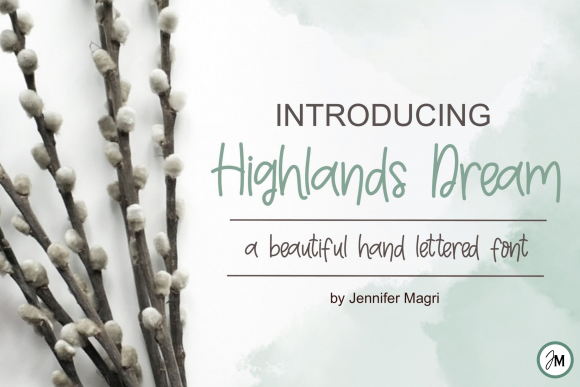
The Highlands Dream Font: Adding Character to Editorial Pages
I was staring at a blank canvas in my layout software, the start of a new personal project—a printable gardening guide I wanted to feel less like a manual and more like a friendly, handwritten letter. The body text was settled, a clean and readable sans serif font, but the title felt sterile. It needed personality, a touch of whimsy to invite the reader in. That’s when I found Highlands Dream, a cool, quirky and childish handwritten font that immediately changed the mood of the entire page.
Highlands Dream for Book Covers and Editorial Titles
What defines the Highlands Dream typeface is its effortless, playful rhythm. It isn’t a formal script; its characters dance with a slightly uneven baseline, and the strokes have a gentle, childlike imperfection that feels authentic rather than digitally rigid. As a Script Handwritten font, it carries a distinct personality—one of approachable creativity. I knew instantly this was not a font for dense paragraphs, but for moments that require visual emphasis and emotional connection. Its editorial appeal lies in that ability to set a tone: friendly, imaginative, and slightly nostalgic.
Using Highlands Dream Fonts in Lifestyle Blog Headers
For my gardening guide, using Highlands Dream as the main title transformed the cover. It supported a clear visual hierarchy—the playful handwritten title sat above the subdued body font, instantly telling the reader this content was approachable and personal. This principle applies directly to blog redesigns. Imagine a lifestyle blog header where the blog name is set in a crisp serif; introducing Highlands Dream for the monthly feature article titles or seasonal series headers can create delightful contrast and draw reader attention without overwhelming the page.
Designing a Recipe Ebook with a Handwritten Feel
A realistic case where this font shines is in digital publications like recipe ebooks or wedding guides. These are projects where mood is paramount. Highlands Dream becomes a perfect choice for chapter openers, section headings like "Desserts" or "Ceremony Details," and decorative pull quotes. It injects a human touch into digital pages, making the content feel curated and special. For longer reading, however, it should remain a display element. The quirky, uneven nature of this handwritten font is best reserved for short, impactful text, ensuring readability isn’t compromised for the core body copy.
Highlands Dream for Quotes and Pull Quotes in Digital Magazines
In editorial layouts, pull quotes are moments of pause and emphasis. Using Highlands Dream for these snippets within a longer article framed by a clean serif font creates a beautiful dynamic. It visually breaks the pattern, highlighting key thoughts with a personality that feels like a gentle underline from the author themselves. This technique works wonderfully in digital magazine features or coaching workbooks, where you want to emphasize core principles or inspiring statements without disrupting the flow of the informative text.
Creating Brand Names and Newsletter Graphics with Personality
The application extends to content branding. For independent creators, a newsletter header graphic using Highlands Dream for the newsletter name can establish a consistent, recognizable identity across every issue. Similarly, for a small brand or a personal project, using this font for the brand name on posters, social media graphics, or the cover of a course PDF can communicate a niche: creative, youthful, and intentionally imperfect. It tells your audience something about your style before they even read a word.
When working with any display font, practical pairing is essential. Highlands Dream pairs beautifully with simple, sturdy fonts for body text. A classic serif font like Georgia or a very clean sans serif font like Inter creates balance. The handwritten display font provides the personality, while the paired font ensures effortless readability for screen reading, mobile layouts, and PDF exports. This is crucial for long-form content like ebooks or printable planners where the body text must be comfortable to read for extended periods.
Practical Considerations for Commercial Font Use
Before committing to using Highlands Dream in client publications or for digital downloads you sell, it’s wise to check its technical specs. Confirm the included file formats (OTF, TTF, often WOFF for web), and crucially, the commercial licensing terms to ensure it covers your intended use—ebooks, templates, printables, paid newsletters. Also, look for any included stylistic alternates or ligatures that can add even more custom flair to your titles or logos. These details ensure your design process is smooth and your final product is professionally sound.
Highlands Dream in Poster Design and Printable Guides
Finally, for tangible outputs like posters or printable guides, the font’s character translates beautifully to print. Its quirky forms hold up well at larger sizes, making it ideal for poster titles or the cover of a printable planner. Within the guide itself, using it sparingly for section headers or decorative borders maintains that handmade aesthetic without sacrificing the utility of the document. The key is restraint; let Highlands Dream be the accent that brings joy and character to your pages, while the foundational text remains clear and functional.
In my gardening guide project, that initial moment of choosing Highlands Dream set the entire tone. It wasn’t just about selecting a font; it was about choosing a voice for the publication. This Script Handwritten typeface allowed the design to speak with warmth and creativity, building a better, more engaging reading experience from the very first glance. For any blogger, publisher, or editorial designer looking to inject authentic personality into their headers, titles, or branding, exploring the playful rhythm of Highlands Dream is a step toward making your content feel not just seen, but felt.